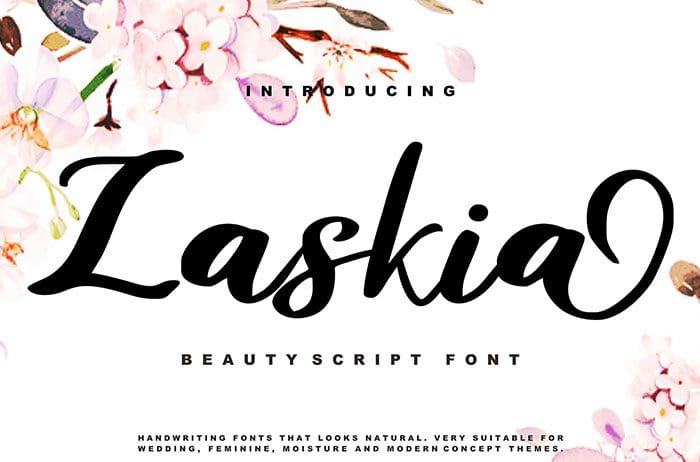
Zaskia Beauty Script Font
Zaskia beauty Script Font is simple with an incredible look. This stunning typeface will turn any crafts idea into a piece of art! Thanks to Vunira Studio for sharing this font! Take a look at this portfolio for more of his stunning fonts.